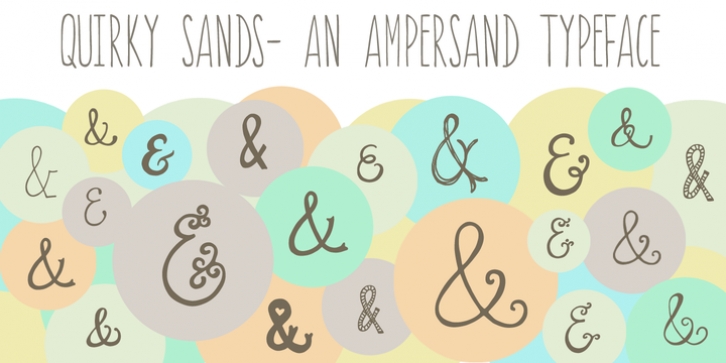
Quirky Sands lives up to its name. This fun, hand-drawn, handmade ampersand font is a sure fit for save the dates, wedding invitations, and other fun design projects requiring a quirky & sign. The uses for these little “sands” are virtually endless!
Included are 57 different ampersands with a unique, imperfectly handmade feel. These pair well with Fonted House’s Canoe font and other hand-drawn typefaces. Perfect to add that hand lettered touch to your next design project.